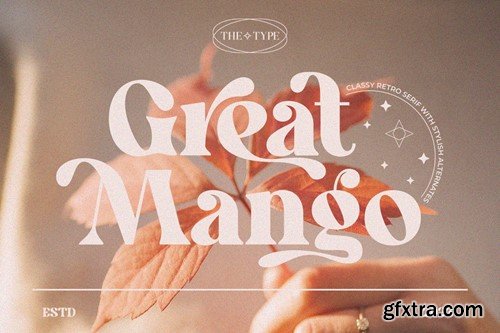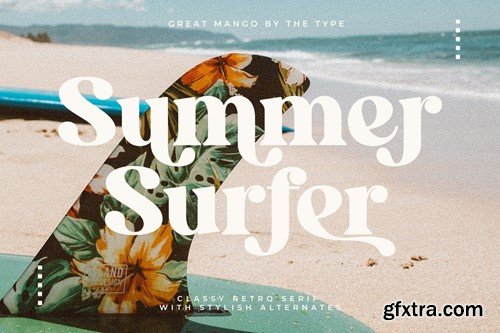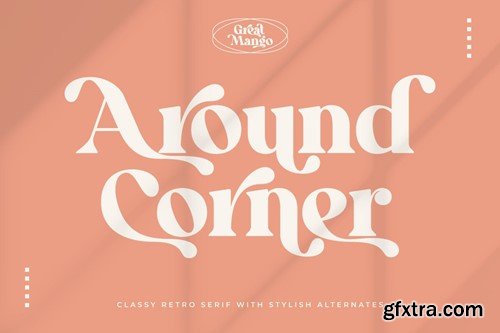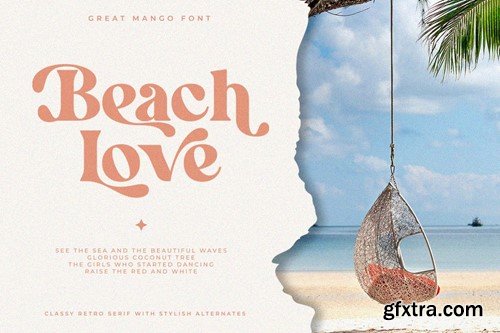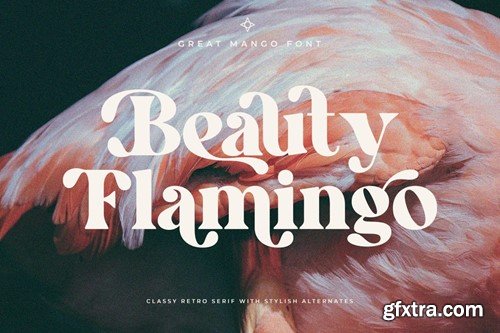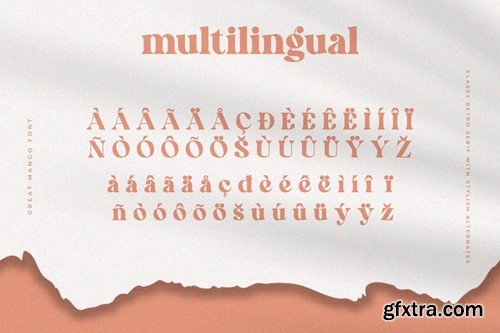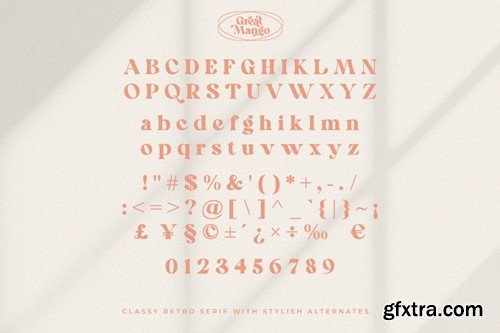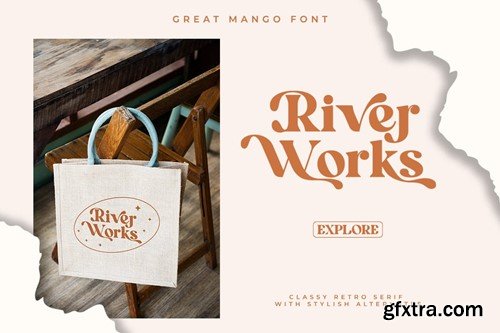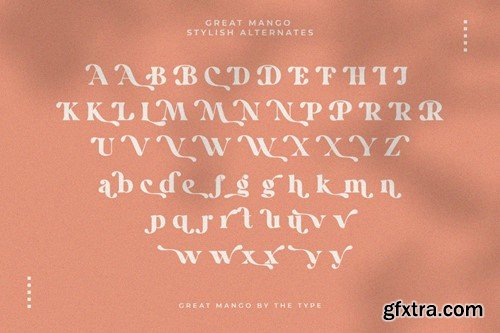
Great Mango - 美式 serif 字体 XGDDZM9
Great Mango - Stylish Serif Font XGDDZM9
Great Mango - Stylish Serif Font
Great Mango - a Stylish serif font Inspired by trendy and stylish. This font can look more classic (conservative) serif, which is perfect for texts. So same he can be more expressive, playing and more modern with alternative substitutes and ligatures, try to play with them and you will get the uniqueness in your project.
Great Mango Features:
• Regular
• Uppercase And Lowercase
• Alternates And Ligatures
• Numerals & Punctuation
• Accented characters
• Multilingual Support